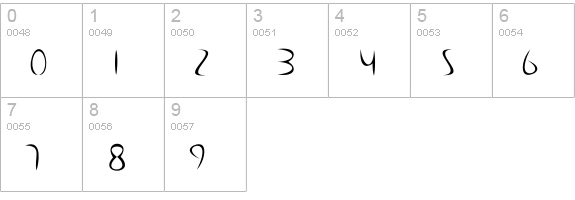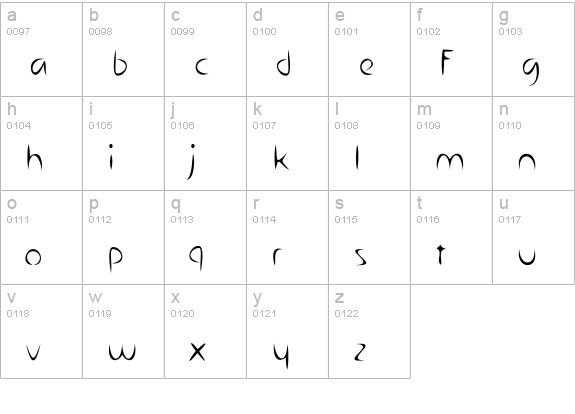
Zartbitter Font Details
Introducing Zartbitter font, a modern and sophisticated typeface that exudes elegance and charm. With its sleek lines and stylish curves, Zartbitter is perfect for adding a touch of sophistication to any design project. Whether you're creating a logo, branding material, or editorial design, this font will elevate your work to new heights. What sets Zartbitter apart is its unique blend of classic elegance and contemporary flair. The font strikes the perfect balance between tradition and modernity, making it versatile enough to be used in a variety of projects. Its clean lines and sharp edges give it a polished and professional look, while its subtle curves add a touch of warmth and personality. Zartbitter is not only visually appealing but also highly readable, making it an ideal choice for both large blocks of text and display purposes. The font is available in a range of weights and styles, allowing you to customize it to suit your specific needs. Best of all, Zartbitter is free to download at FontsMarket.com. So why wait? Elevate your design projects with this stunning font today!